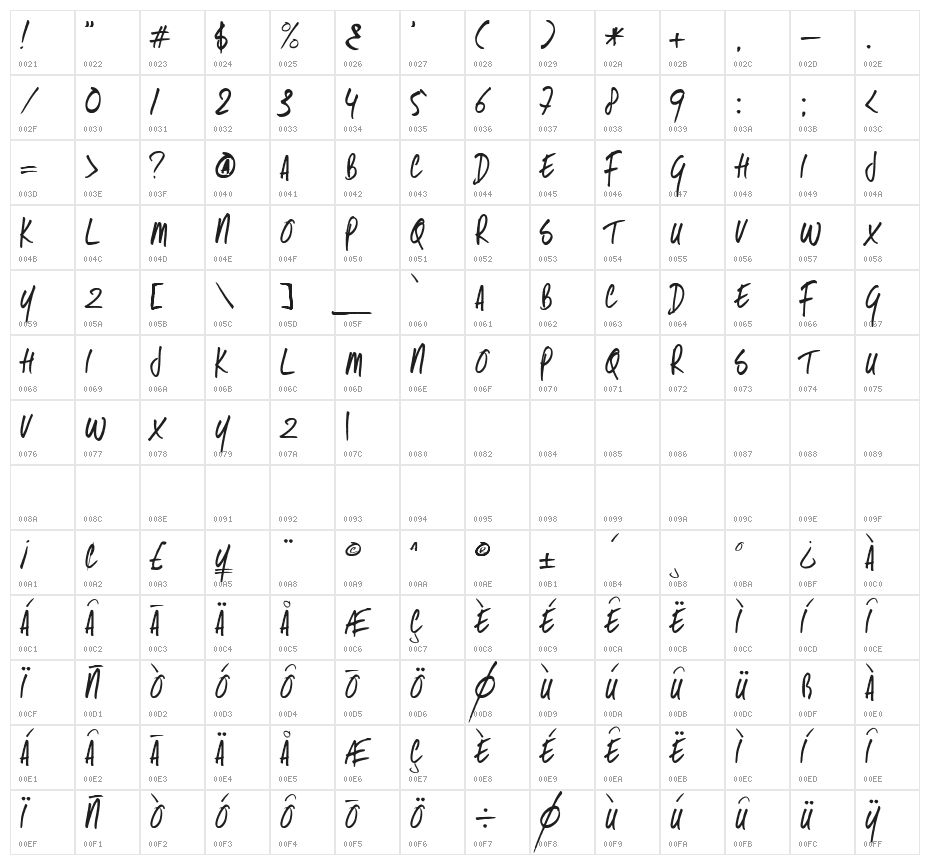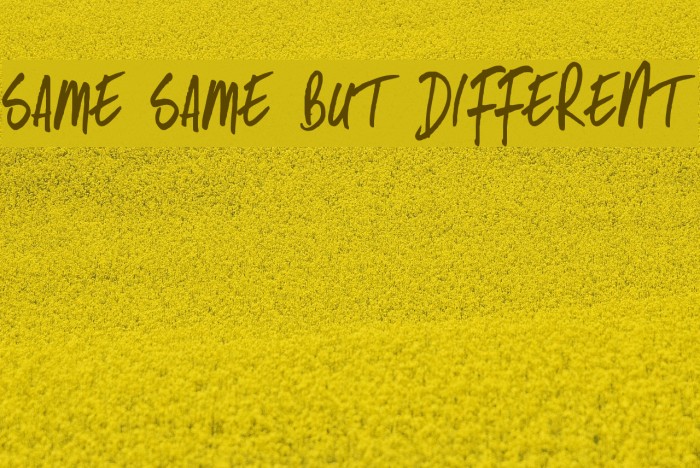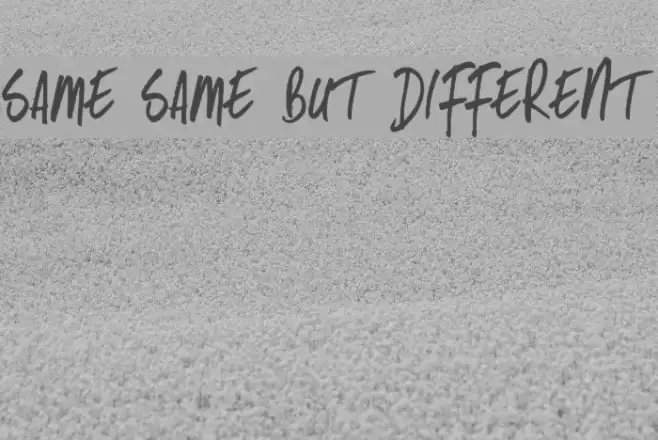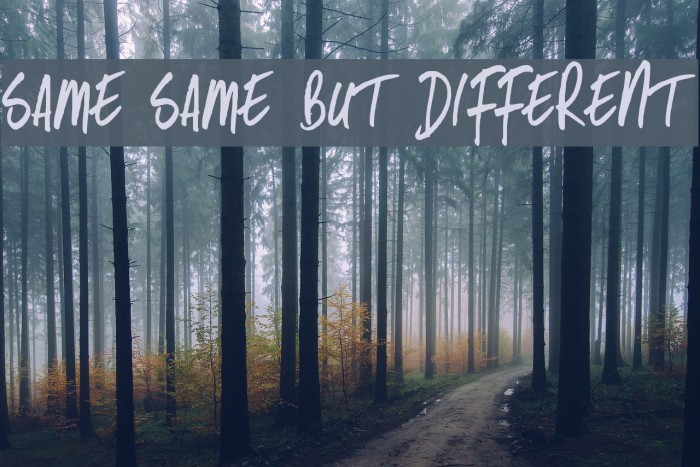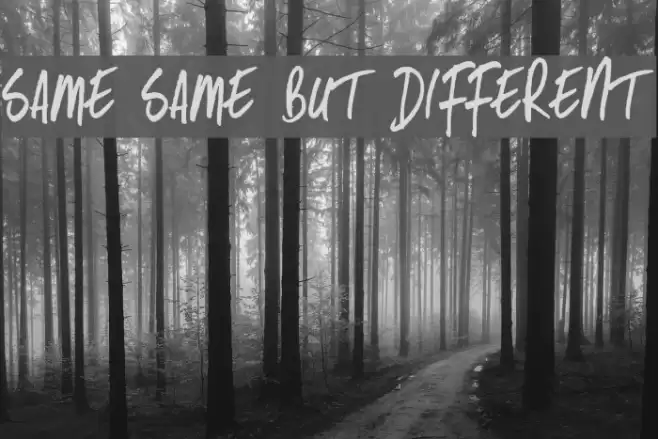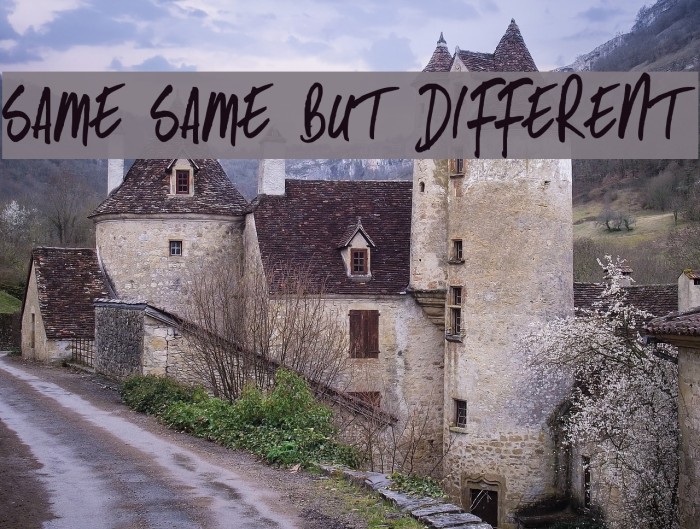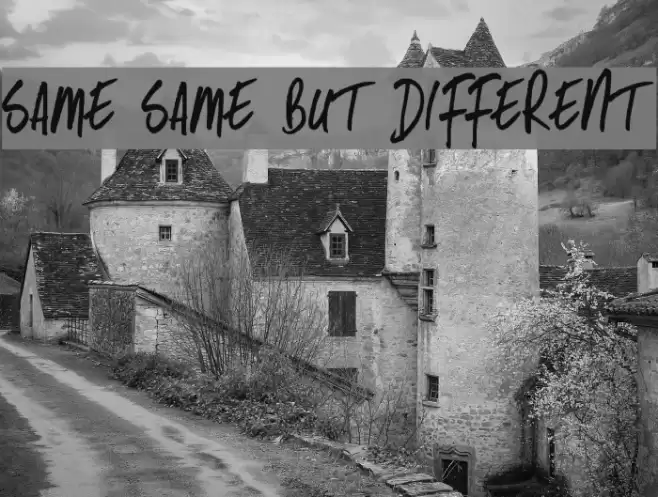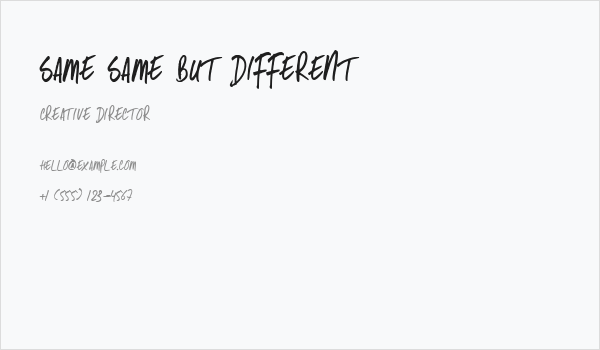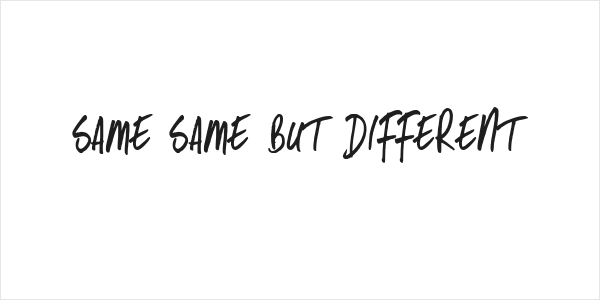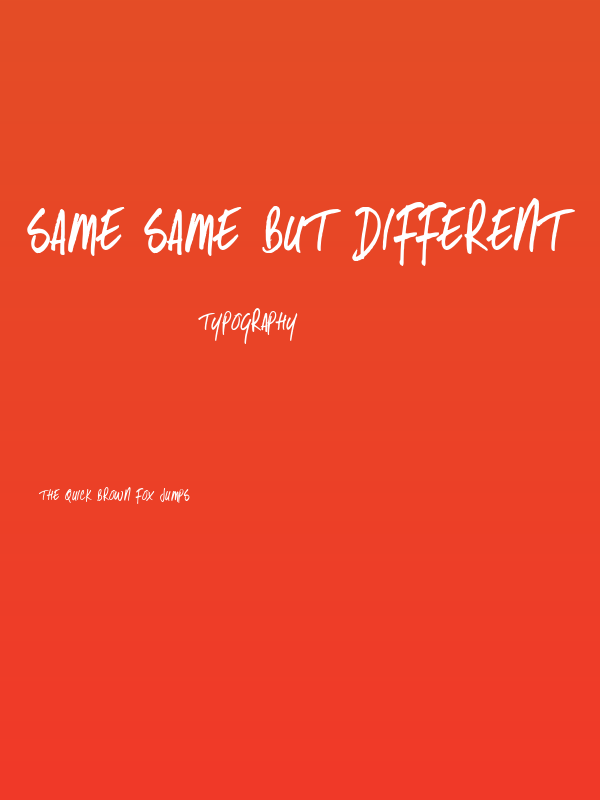
Same Same But Different Font
Same Same But Different Description
This font features a dynamic and expressive handwritten style, characterized by its bold and fluid strokes. The letters are slightly slanted, giving a sense of movement and energy. The uppercase and lowercase characters maintain a consistent style, with a playful yet legible appearance. The numbers and special characters follow the same lively design, making the font versatile for various uses. Its informal and artistic nature makes it suitable for creative projects where a personal touch is desired.